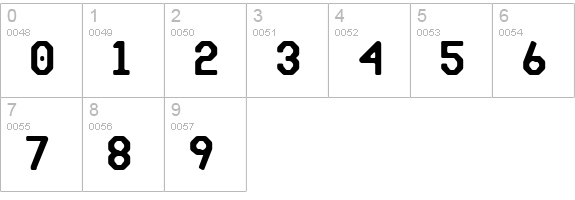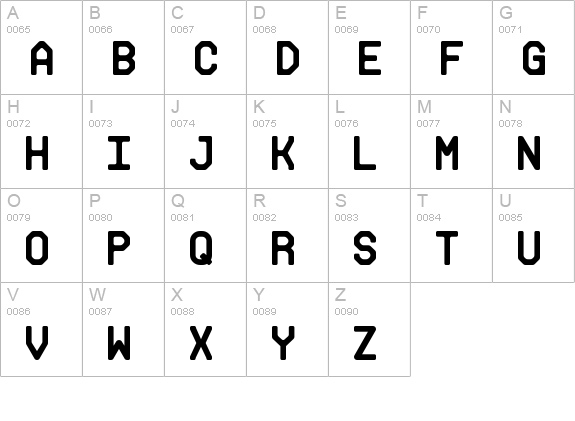
Makisupa Font Details
Introducing the magnificent Makisupa font, a captivating typeface that combines elegance with a touch of playfulness. This font is perfect for adding a unique and stylish flair to any creative project. Makisupa is a versatile font that can be used for various purposes, whether it's designing eye-catching logos, crafting stunning headlines, or creating artistic posters. Its distinctive and carefully crafted letterforms will surely leave a lasting impression on any viewer. One of the most remarkable aspects of Makisupa font is that it is freely available to download at FontsMarket.com. This means that you can enjoy the countless possibilities this font offers without any cost. It's an incredible opportunity to enhance your designs, without having to worry about breaking the bank. With its smooth curves and subtle details, Makisupa font embodies a sense of modern sophistication. Its clean and legible design ensures readability even at smaller sizes, making it ideal for both print and digital applications. This font truly stands out from the crowd, exuding a sense of charm and uniqueness that will captivate any audience. Embrace the creativity that Makisupa font brings and elevate your designs to new heights. Whether you're a professional designer or a passionate hobbyist, this font is sure to become a valuable asset in your collection. So why wait? Visit FontsMarket.com today and discover the magic of Makisupa font, freely available for download. Unleash your imagination and let Makisupa font become the key to unlocking your design potential.